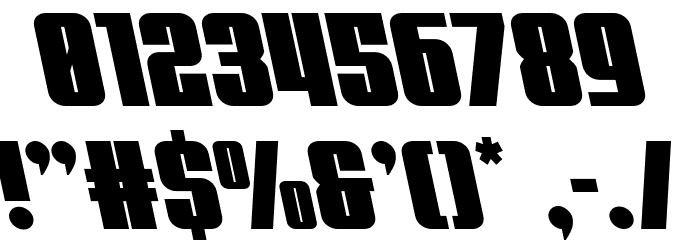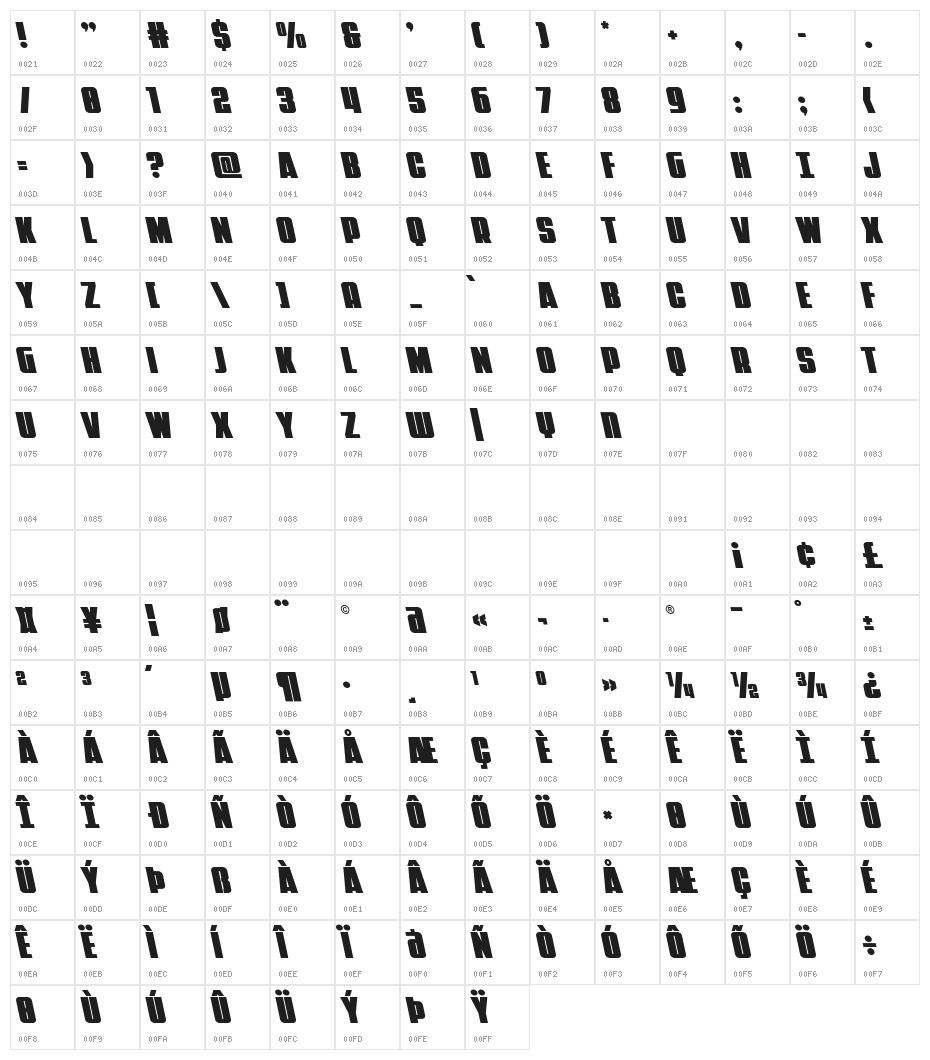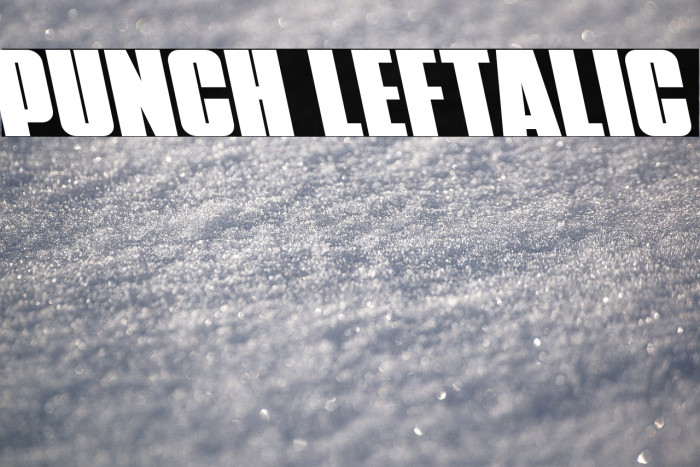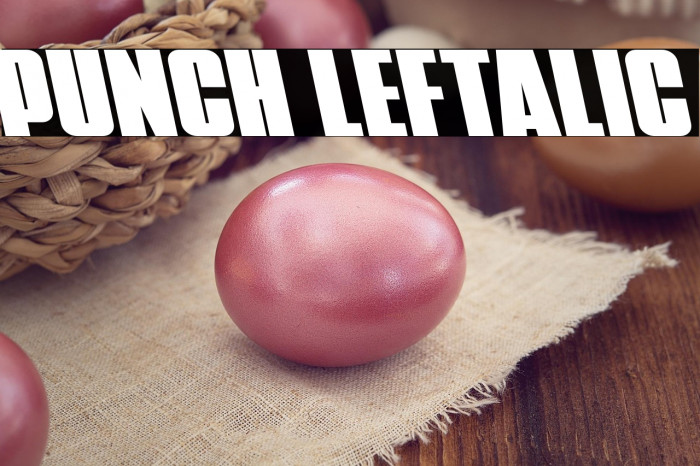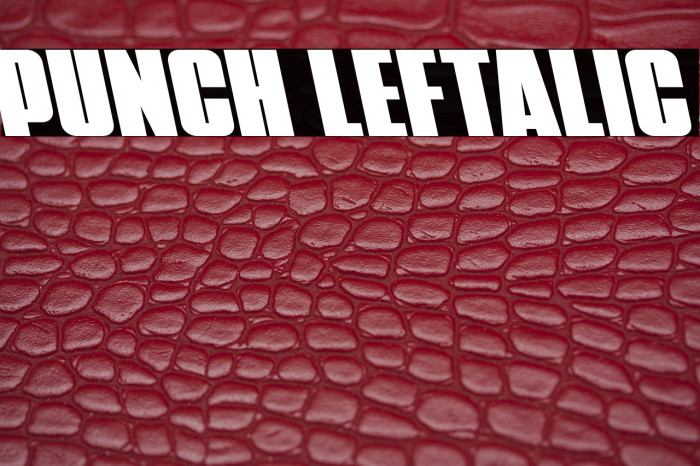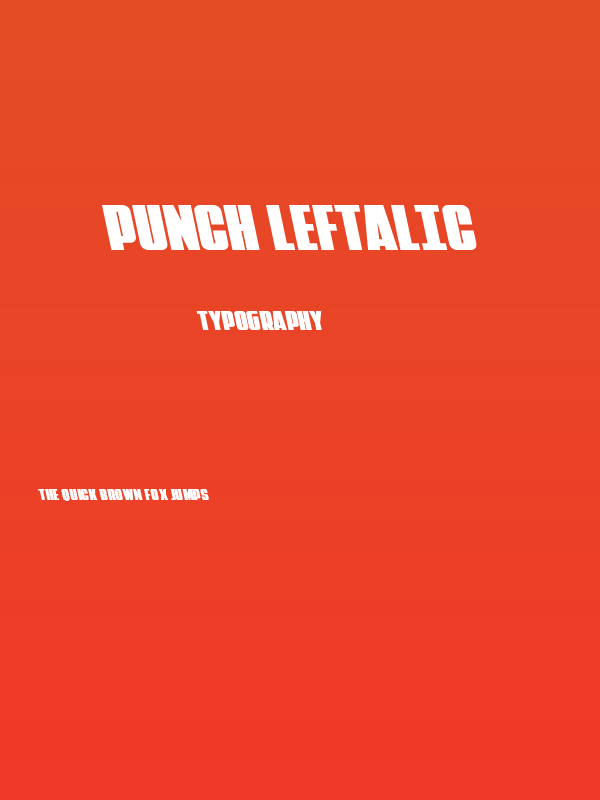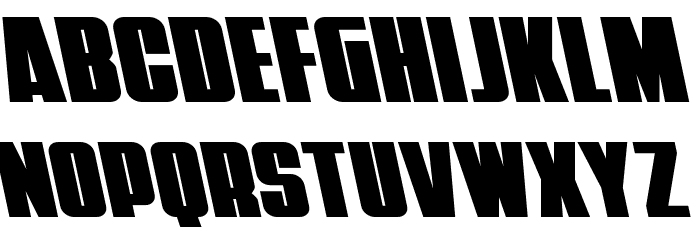
Punch Leftalic Font
Punch Leftalic Description
This font features a bold, impactful style with a strong presence, characterized by thick, solid strokes and a slight italic slant to the left. The uppercase letters are robust and commanding, while the lowercase letters maintain the same weight and slant, ensuring consistency throughout. The numbers are equally bold, making them stand out prominently. Special characters are designed to match the overall boldness and slant, providing a cohesive look. The font's design is ideal for making a statement, with its heavy weight and italicized form adding a dynamic and energetic feel.
| Proposed Projects | Ideal for posters, headlines, branding, and any project requiring a bold, dynamic typeface. |